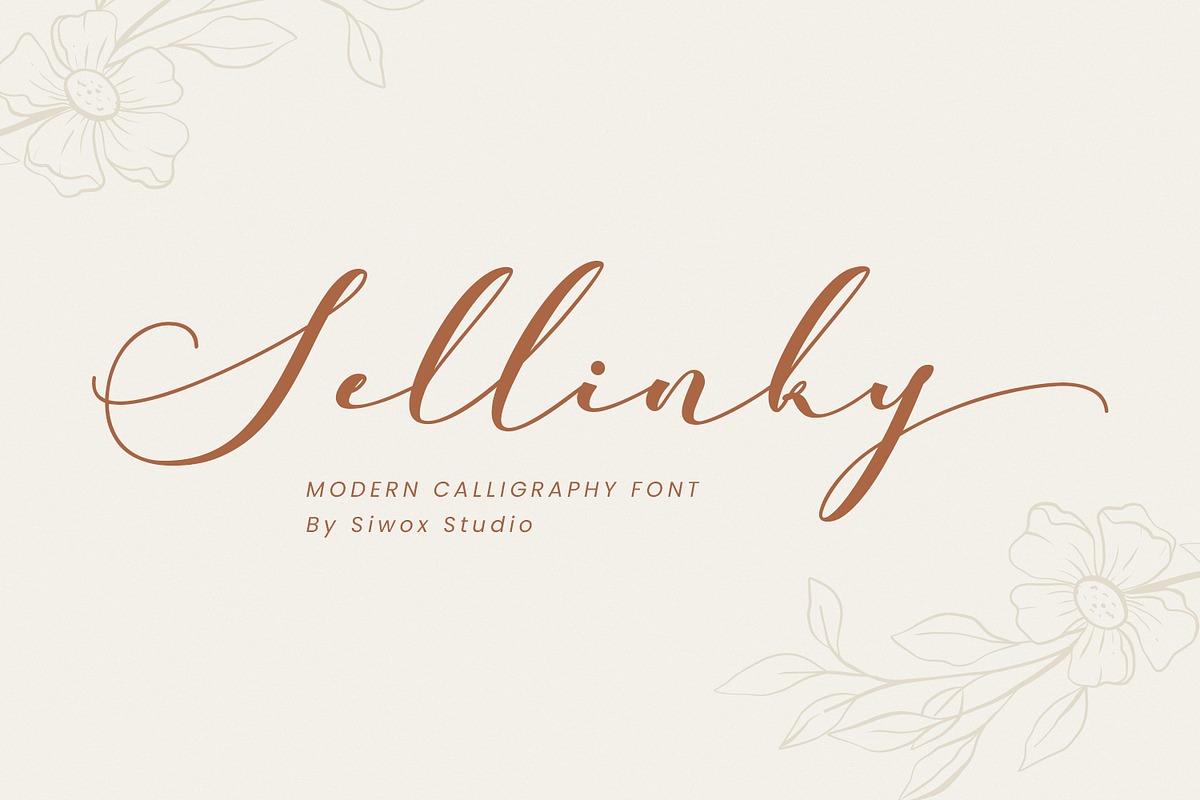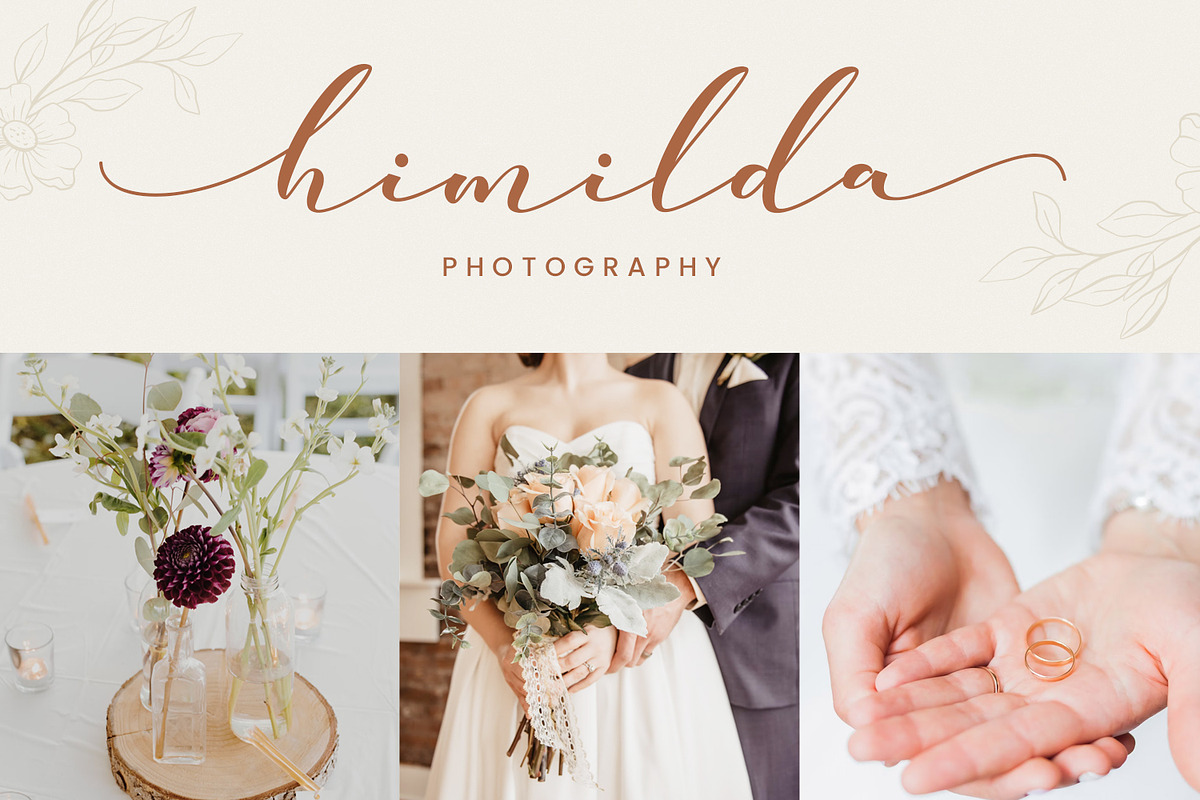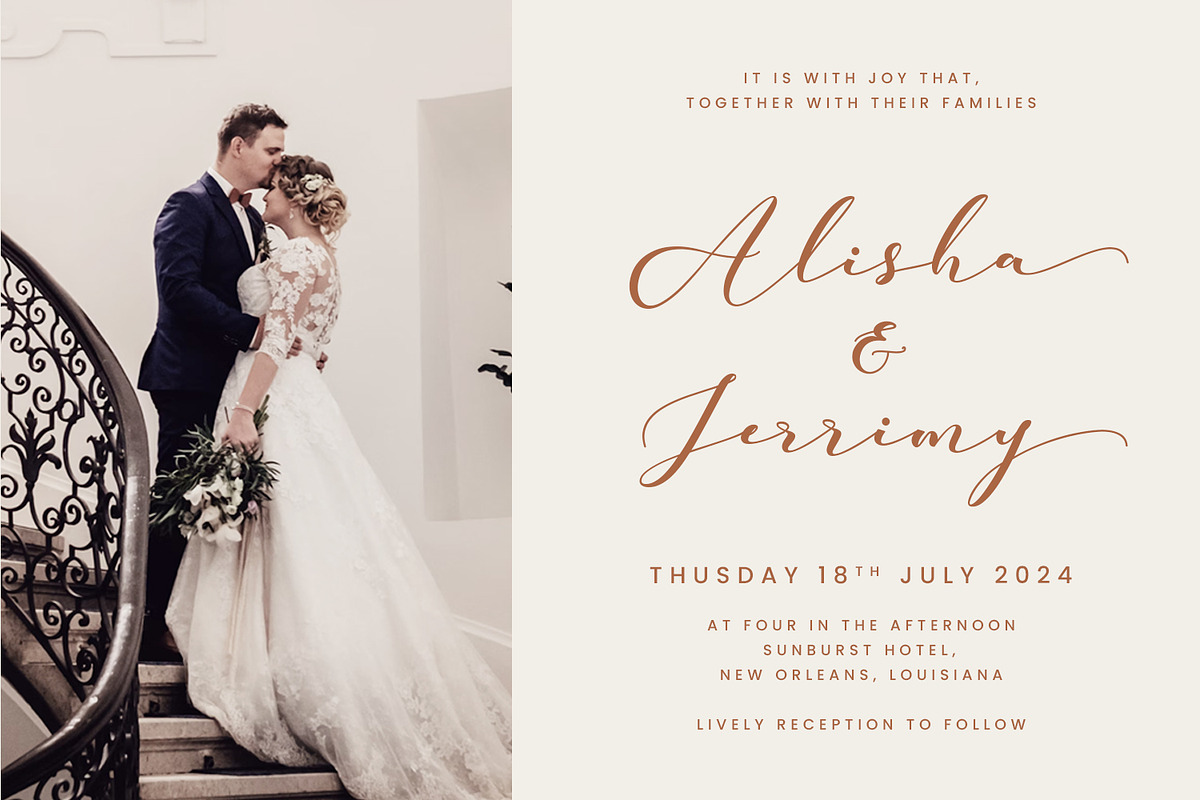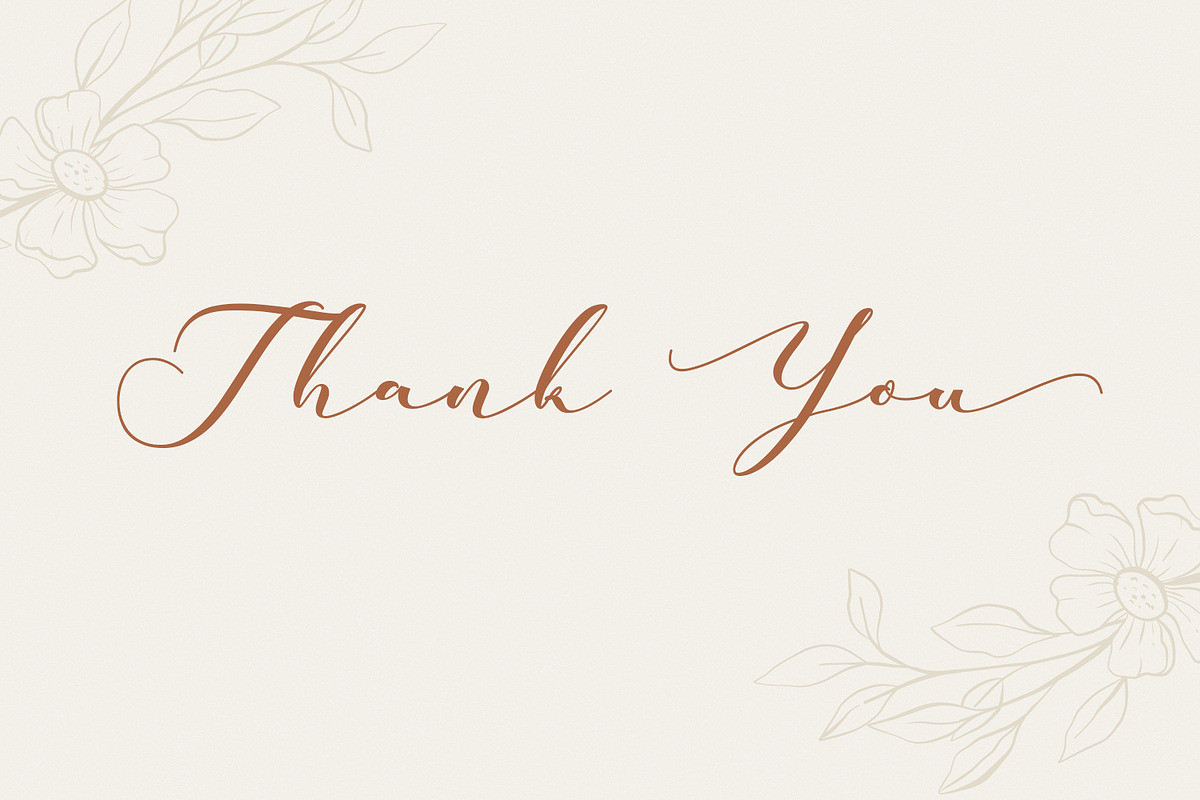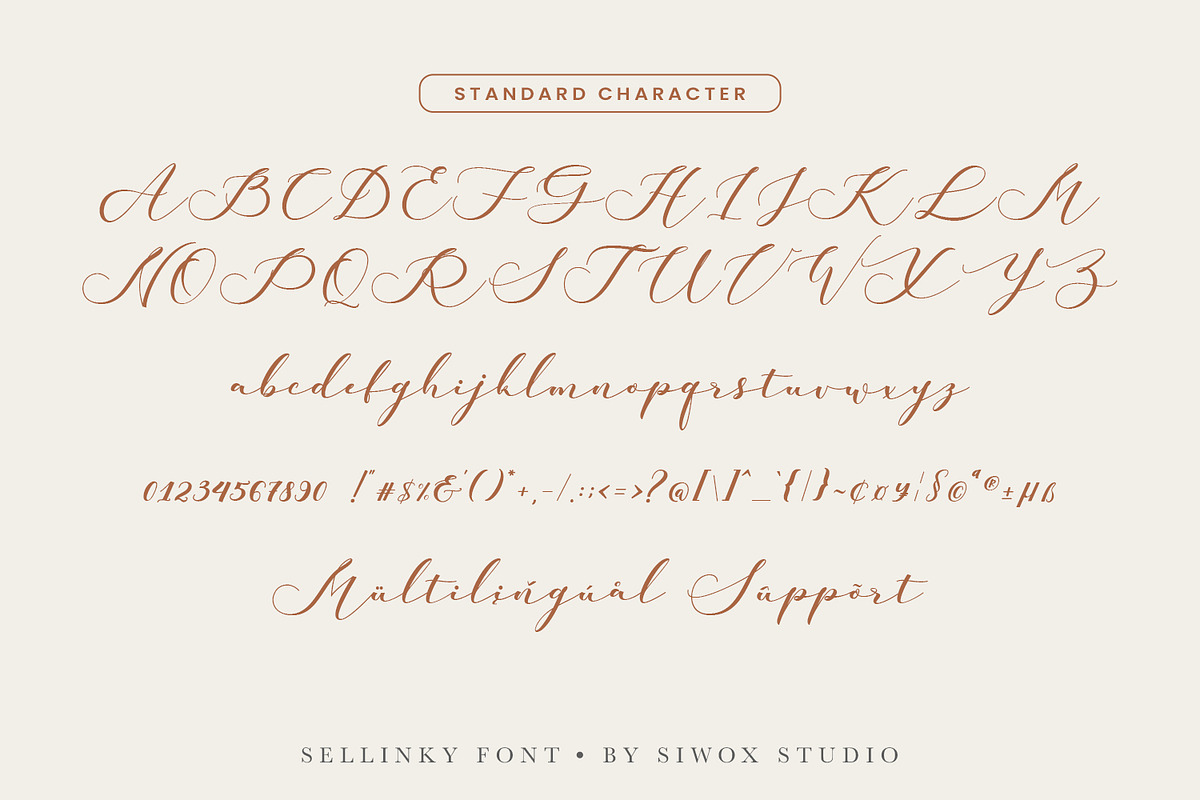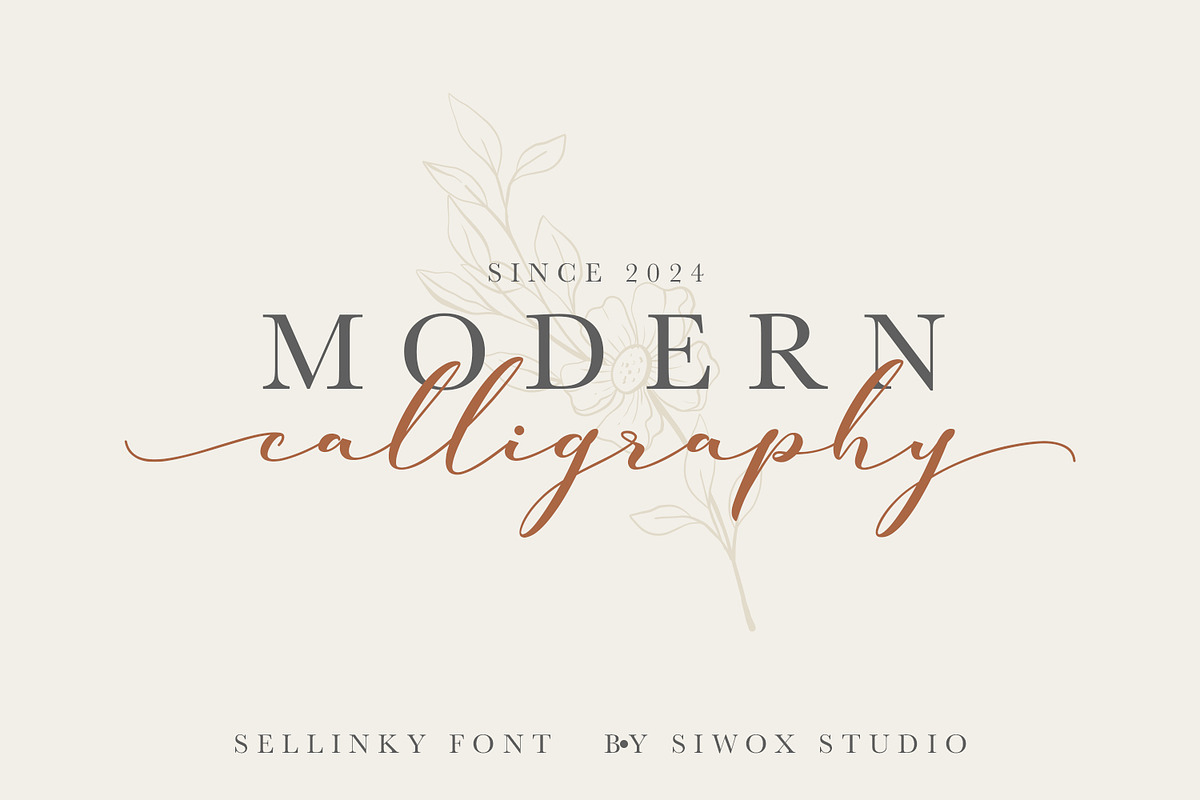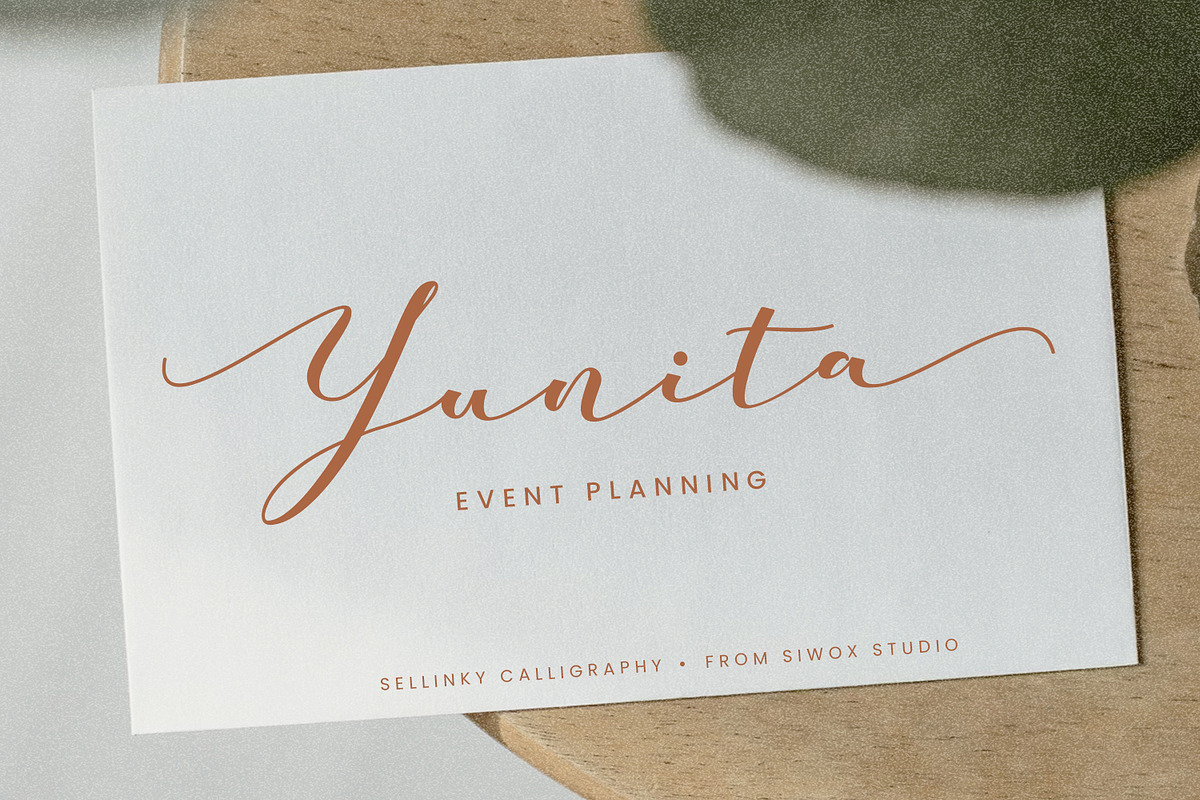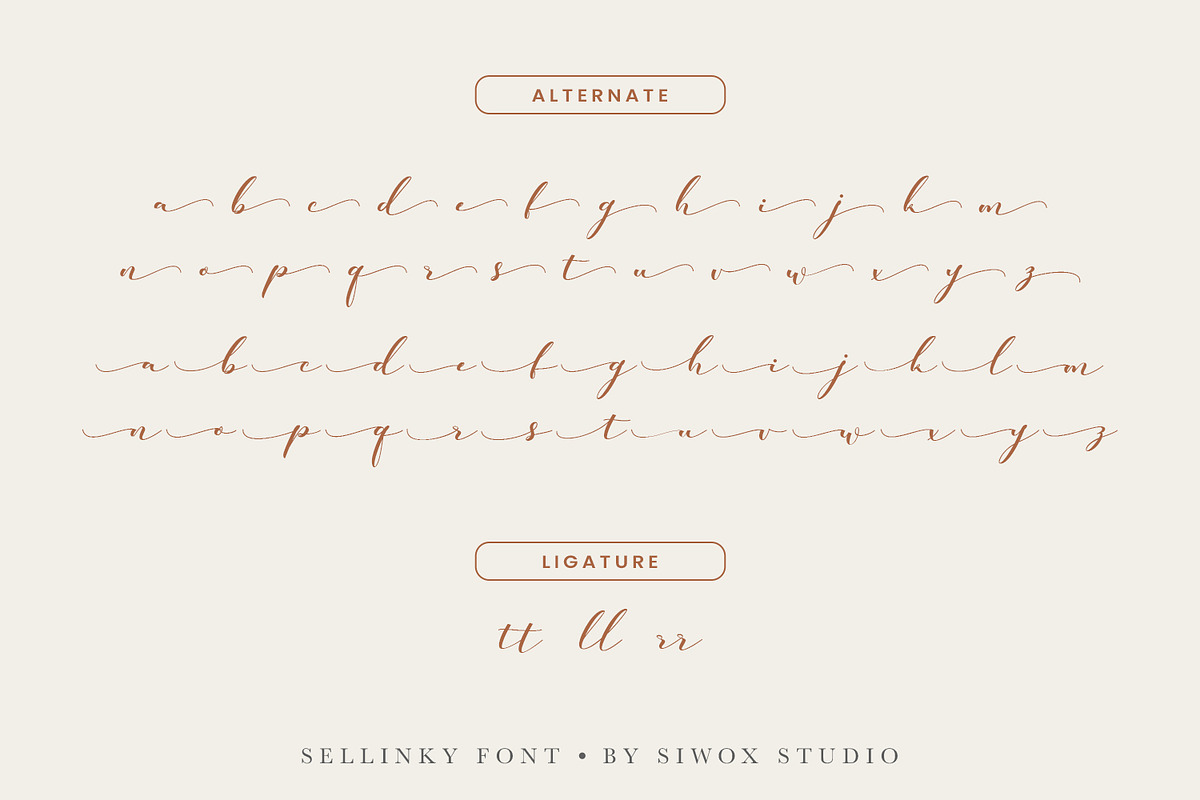
Sellinky - modern calligraphy script
Welcome to the world of enticing calligraphy with Sellinky, an elegant font that's a contemporary favorite in the design universe. Its charm lies in its subtle sophistication, which dovetails seamlessly with its modern appeal. Particularly favored for its aptness on wedding invitations and save the date cards, Sellinky has also proven to be a perfect fit in creating all things feminine brand related.
The font allows you to play with a wide range of Uppercase and Lowercase Basic Characters, Numbers, and Punctuation - all aimed at supporting your creative flair. But that’s not all, Sellinky takes its appeal even further by featuring specially crafted and stylish alternatives for the lowercase characters; a feature created to help you effortlessly reflect the elegance and natural flow of calligraphy into your designs. Step into the enchanting world of modern calligraphy with Sellinky.